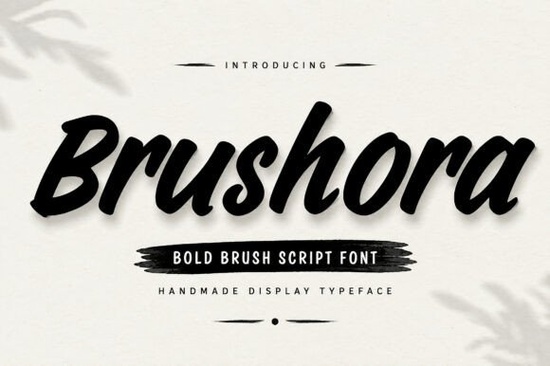
When you need a typeface that adds energy and personality to your designs, Brushora Font delivers with its bold brush strokes and natural flow. This script font works well for everything from logo design to social media graphics, giving your projects a handcrafted feel that still looks professional. If you're tired of overly polished fonts that lack warmth, this one is worth adding to your toolkit.
What makes Brushora Font different from other script fonts?
Many script fonts look too neat or rigid, which can make designs feel stiff. Brushora stands out because it mimics real brush lettering without sacrificing readability. The strokes have slight texture and variation, so each letter feels like it was painted by hand. That organic look is hard to find in standard typefaces.
It also carries a confident weight. The bold curves grab attention even at smaller sizes, making it a solid choice for headlines and logos. For projects where you want a friendly but assertive tone, this font balances both. If you prefer a softer handwritten style, a lighter option like Honeysmile Font offers a more delicate touch.
How can Brushora Font improve your branding?
Small businesses and print-on-demand sellers often struggle to create a consistent brand look without hiring a designer. A font like Brushora helps you build that identity quickly. Use it for your main logo, then carry it over to product labels, website headers, and packaging. Because the lettering feels personal, customers perceive more authenticity.
Pair it with a simple sans-serif font for body text, and you have a complete brand system. The bold script stands out on business cards and flyers without needing extra graphics. For a playful twist, consider combining it with a decorative style such as The Lucky Chunks Font for special promotions.
Is Brushora Font suitable for print-on-demand products?
Absolutely. Print-on-demand sellers need fonts that look good on apparel, mugs, and posters, and Brushora fits the bill. The thick strokes print clearly on dark and light backgrounds, and the readability holds up even when scaled down for small items like stickers. Since the font has a handcrafted vibe, it works well for inspirational quotes and slogan designs that people actually want to wear.
If you're designing for party-themed merchandise or event invitations, Party Family Font brings a festive script style that complements Brushora's boldness.
How to use Brushora Font for Cricut and handmade crafts
For crafters who use Cricut or similar cutting machines, Brushora is a reliable choice. Its clean curves and consistent stroke width mean fewer weeding problems when cutting vinyl. The PUA encoding lets you access special characters easily, so you can add flourishes or alternate letters to your designs. That's handy for custom signs, mugs, or t-shirts.
When using the font for layered projects, keep the size around 50 points or larger to maintain the brush texture. Test a small sample before cutting a full design to make sure the details come through. For handwritten labels and tags, the font gives a personal touch without needing your own lettering skills.
What technical features should you check?
Here's a quick rundown of what Brushora Font includes:
- Uppercase and lowercase characters – full alphabet with natural script flow
- Numbers and punctuation – complete punctuation set for professional use
- Smooth brush lettering style – avoids rough edges typical of low-quality brush fonts
- Easy to read – even in longer quotes or product descriptions
- PUA encoded – access extras like swashes and ligatures on any software
- Multilingual support – covers common accented characters
- Consider a full family if you need multiple weights – Brushora offers a single bold style, so plan accordingly.